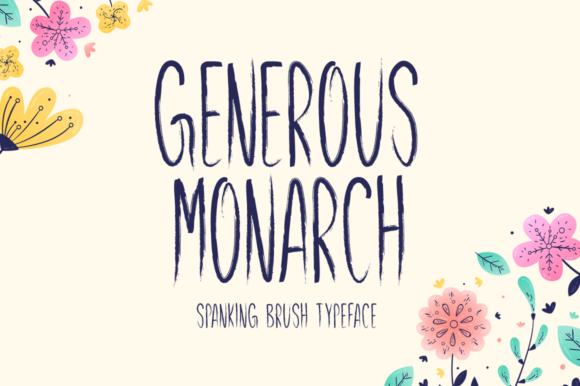
The Designer’s Delight: Generous Monarch Font
I’ll never forget the time I was working on a project for a client who wanted a unique and quirky font to match their brand’s playful personality. I spent hours scouring the internet for the perfect font, but nothing seemed quite right. That was until I stumbled upon Generous Monarch Font. This display font has been a game-changer for me, and I’m excited to share its awesomeness with you! 😊
- ✨ Unique and quirky design that’s perfect for adding a creative spark to your designs
- ✅ Highly legible, even at larger sizes
- 💥 Versatile and can be used for a wide range of projects, from thank you cards to logos
- 🎨 Beautiful OpenType features and glyphs to enhance your designs
While Generous Monarch Font is an amazing font, there are a few things to keep in mind:
- ⚠️ May not be suitable for body text due to its display font nature
- 🤔 Some characters may not work well at very small sizes
Generous Monarch Font was designed with the intention of creating a unique and creative display font. The designer wanted to create a font that would add a touch of personality to any design project. With its quirky and playful vibe, Generous Monarch Font is sure to bring a smile to your face!
Q: What is Generous Monarch Font best used for?
A: Generous Monarch Font is perfect for display purposes, such as titles, headlines, and quotes. It’s also great for adding a creative spark to thank you cards, greeting cards, logos, and business cards.
Q: Can I use Generous Monarch Font for body text?
A: While Generous Monarch Font is highly legible, it’s not recommended for body text due to its display font nature. It’s best used for larger sizes and headings.
Q: Does Generous Monarch Font have OpenType features?
A: Yes! Generous Monarch Font has beautiful OpenType features and glyphs that can add an extra layer of creativity to your designs.
Q: Is Generous Monarch Font easy to read?
A: Yes! Despite its quirky design, Generous Monarch Font is highly legible, even at larger sizes.